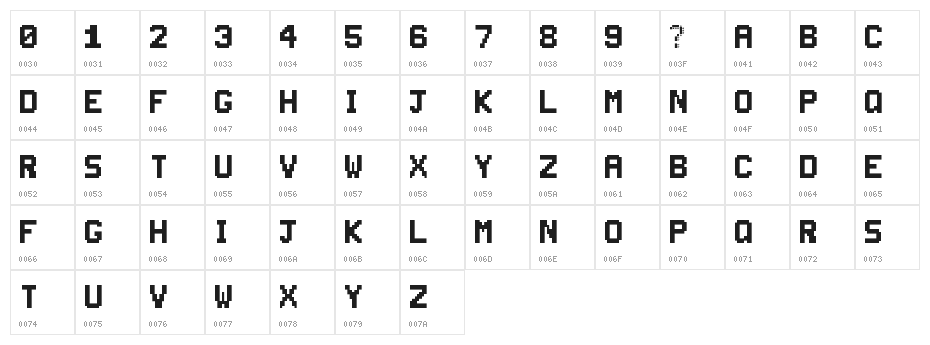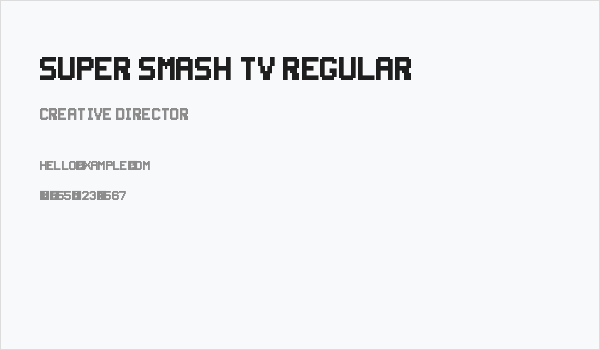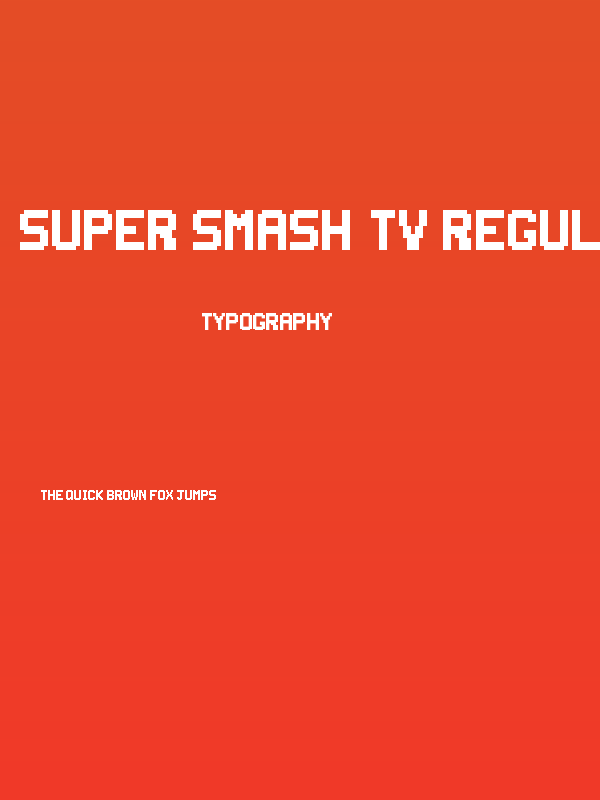
Super Smash TV Regular Font
Super Smash TV Regular Description
This font features a bold, pixelated design reminiscent of classic arcade games. Each character is constructed with a blocky, grid-like appearance, giving it a retro, digital feel. The uppercase and lowercase letters maintain a consistent height, emphasizing a uniform aesthetic. The numerals and special characters follow the same pixelated style, ensuring cohesion across all glyphs. This font's nostalgic charm is perfect for projects aiming to capture the essence of 8-bit or 16-bit video games.
| Overall Style | Retro |
| Proposed Projects | Ideal for video game designs, retro-themed posters, digital art, and nostalgic branding projects. |